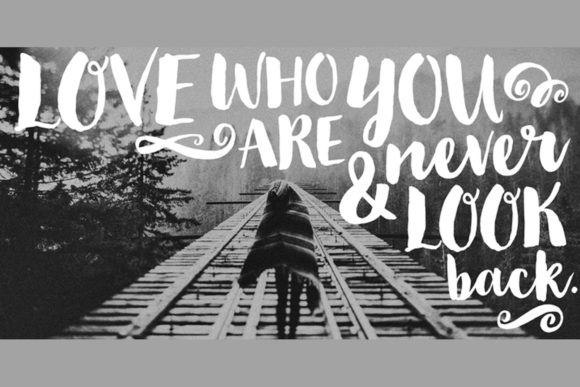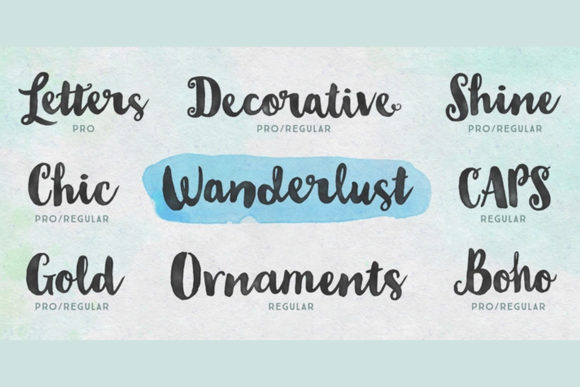
Wanderlust Font
db-ku.com - Script & Handwritten -- Wanderlust is a cute handwritten font. It features amazing swashes and beautiful ligatures. It will elevate a wide range of design projects to the highest level, be it branding, headings, wedding designs, invitations, signatures, logos, labels, and much more!